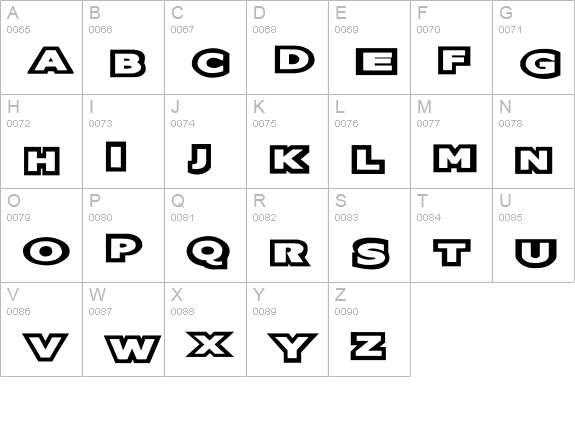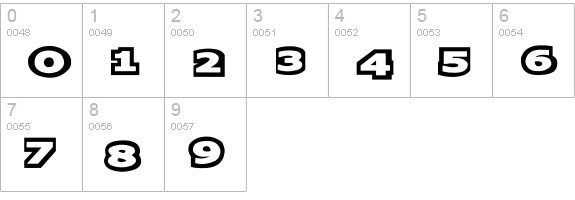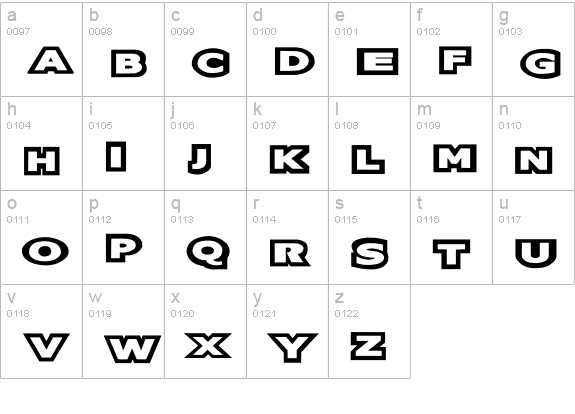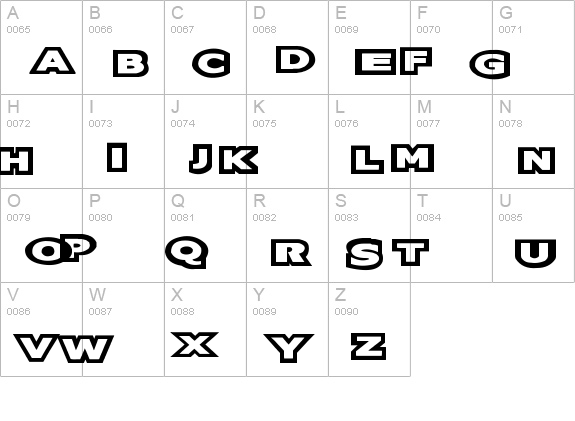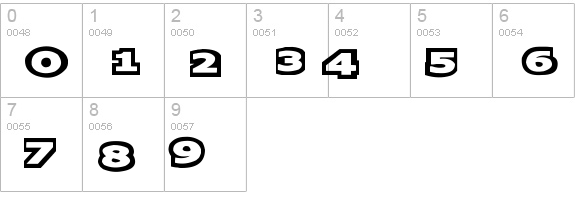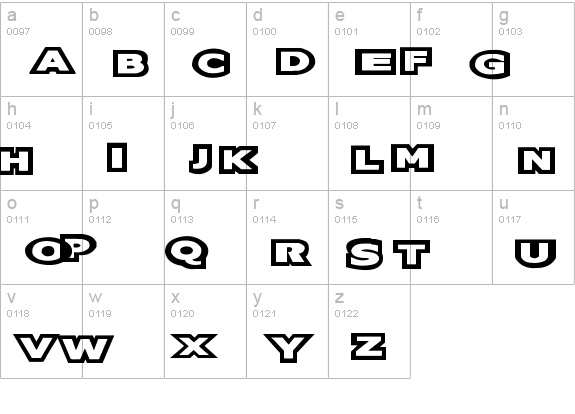
Oreos Font Details
Introducing the delectably delicious Oreos font, a delightful typeface that exudes a perfect blend of sweetness and sophistication. This playful yet elegant font is inspired by the iconic cream-filled cookie, with its smooth curves and irresistible charm. Ideal for adding a touch of whimsy to your designs, Oreos font is perfect for branding, packaging, invitations, and more. The best part? Oreos font is available for free download at FontsMarket.com. Embrace the joy of creativity with this delightful typeface and bring a taste of fun to your projects. Add a sprinkle of sweetness to your designs with Oreos font and let your imagination run wild.